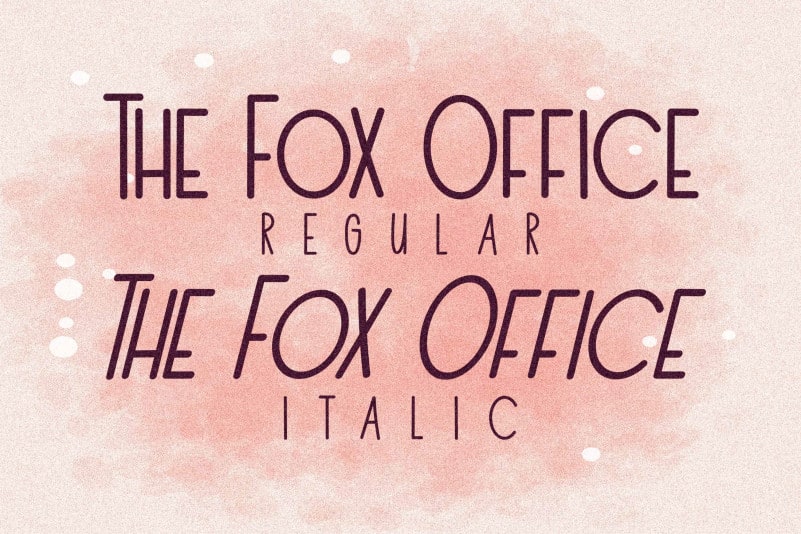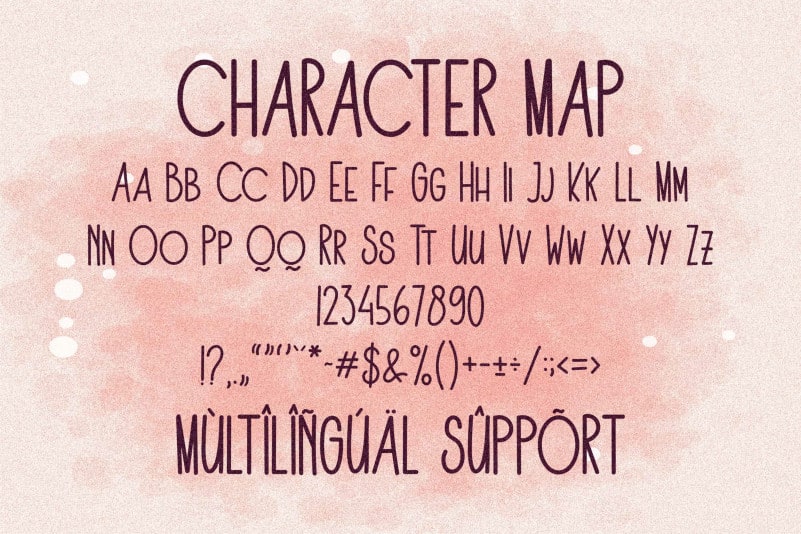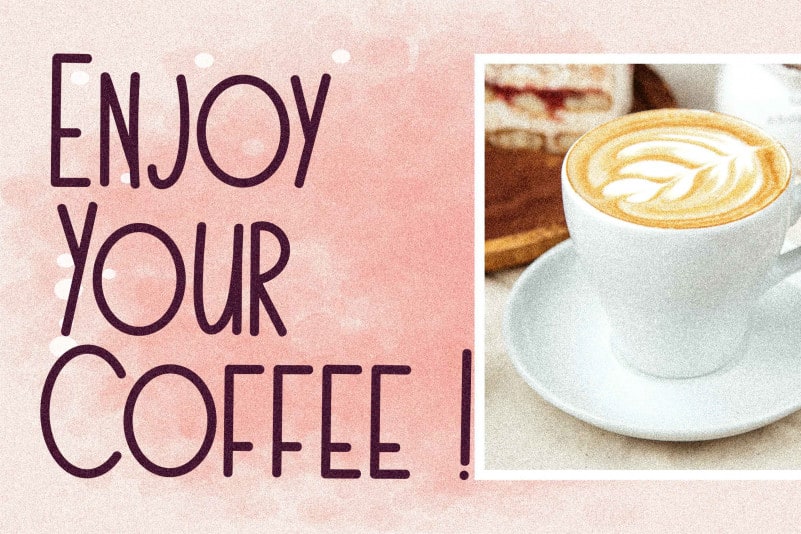
The Fox Office Display Font is a simple, tall and natural display font. It is suitable for any branding, product packaging, invitation, quote, t-shirt, label, poster, logo that you wish to develop.